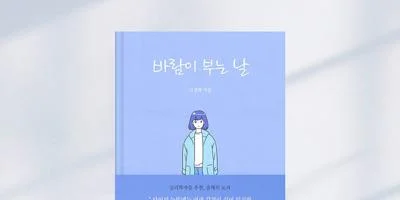
Rix Freestyle Font
Rix Freestyle Font is a fun, energetic script typeface designed to capture a casual, hand-drawn aesthetic. Featuring fluid, organic strokes and playful curves, this font is perfect for projects that require a lively and artistic feel, such as logos, branding, invitations, posters, and social media graphics.
Rix Freestyle Font offers a creative and personal touch to your typography, making it ideal for designs that need to stand out with energy and personality. Its flowing lines make it perfect for creative endeavors where the style is both informal and artistic.
Whether you’re designing for a creative brand, a fun event, or crafting engaging digital content, Rix Freestyle will add an energetic and whimsical vibe to your projects.